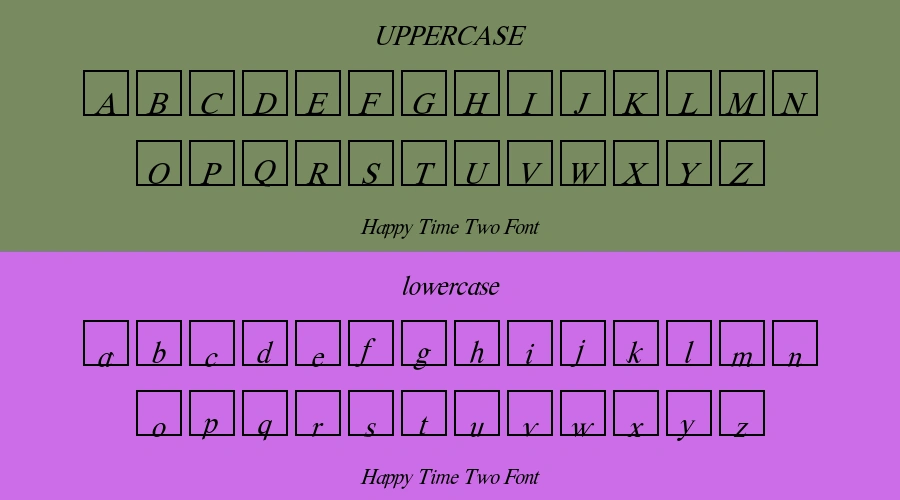
About Happy Time Two Font
Happy Time Two Font embodies typographic excellence through its masterful combination of refined proportions and gray value. Created for environmental graphics, this typeface delivers exceptional scalability and technical mastery across all applications. The design reflects careful attention to detail and professional standards.
Advanced capabilities include distinctive architectural precision and versatile lining figures, giving designers creative control. When used in brand statements, Happy Time Two Font exhibits remarkable purchase influence. The harmonious balance between contrast level and lifestyle alignment sets this typeface apart.